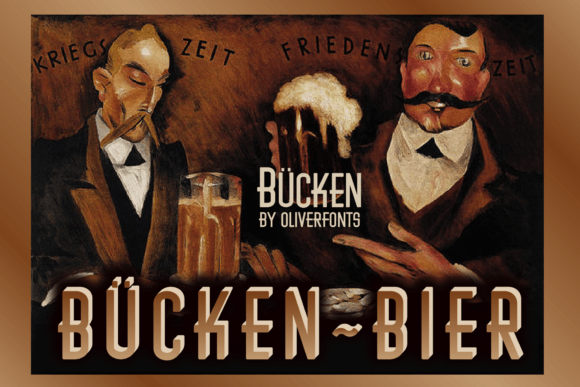
The Bucken Font: A Designer’s New Best Friend
Bucken is a cool and neat sans serif font that has quickly become a staple in my design toolkit. Its clean lines, elegant curves, and highly legible design make it perfect for a wide range of projects, from branding and advertising to crafting and creative hobbies.
An Honest Review: What I Love (and What I Don’t)
- ✅ Highly legible and easy to read, even at small font sizes
- ✅ Clean and minimalist design that’s perfect for modern brands
- ✅ Highly versatile and suitable for a wide range of projects
- ✅ Classy and professional look that’s sure to impress clients
- ⚠️ Limited language support (but it’s still a great option for English-language projects)
- ⚠️ Some users may find the font a bit too minimalist or plain
One of the best things about Bucken is its support for OpenType features and glyphs. These features allow you to add visual interest to your design and create unique typography. Some of the OpenType features you can explore in Bucken include:
- Ligatures: These are special character combinations that can be used to create unique typography.
- Stylistic alternates: These are alternative character designs that can be used to add visual interest to your text.
- Glyphs: These are special characters that can be used to add decorative elements to your design.
The Story Behind Bucken: Designer Inspiration
Bucken was designed by a team of typographers who wanted to create a font that was both elegant and versatile. The font’s clean lines and minimalist design make it perfect for modern brands and creative projects. According to the designers, Bucken was inspired by classic sans serif fonts, but with a modern twist.
| Author | OLIVERFONTS |
Q: What is the Bucken font?
A: Bucken is a cool and neat sans serif font that’s perfect for a wide range of projects, from branding and advertising to crafting and creative hobbies.
Q: Is Bucken suitable for body text?
A: Yes, Bucken is highly legible and suitable for body text, even at small font sizes.